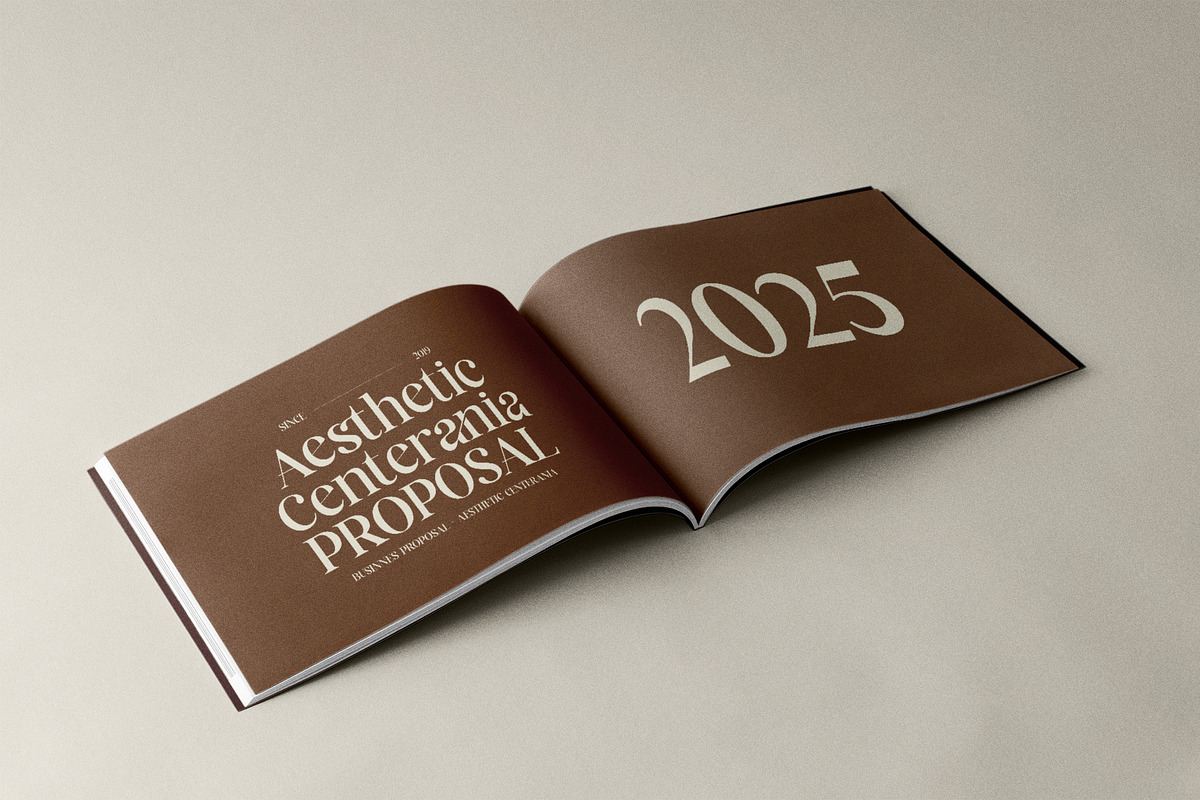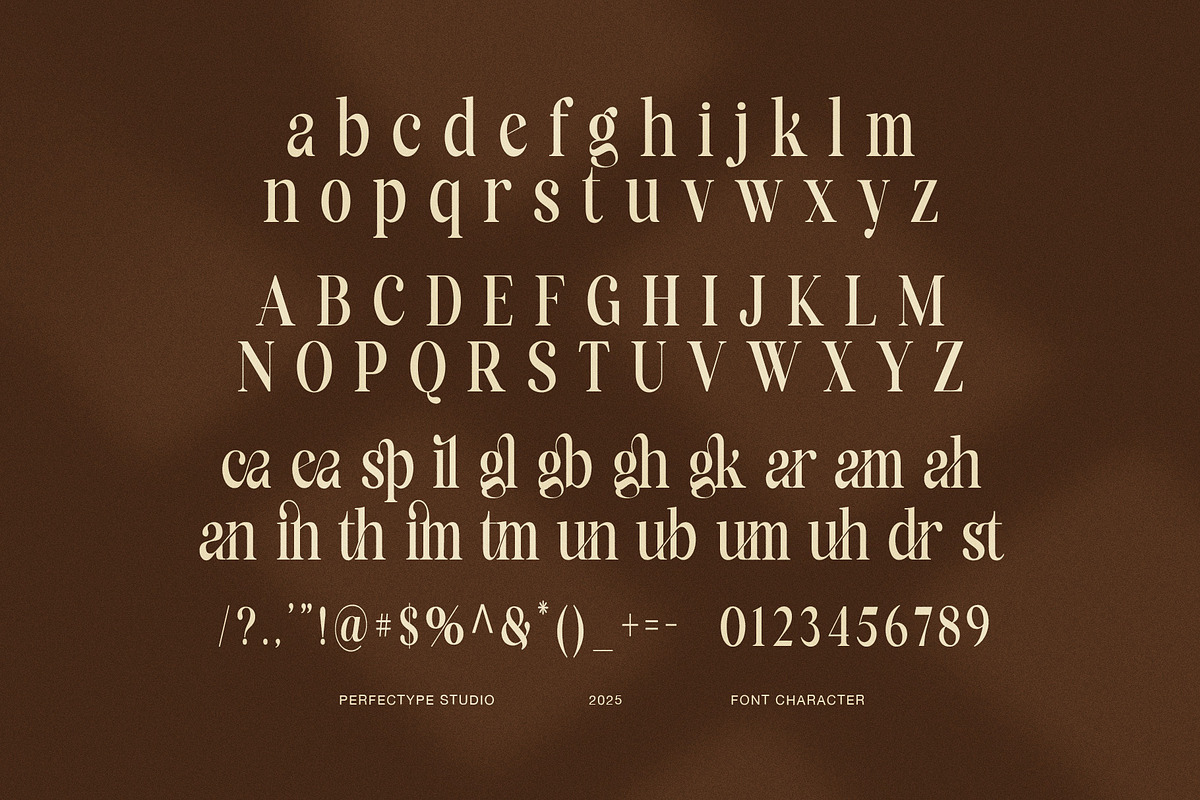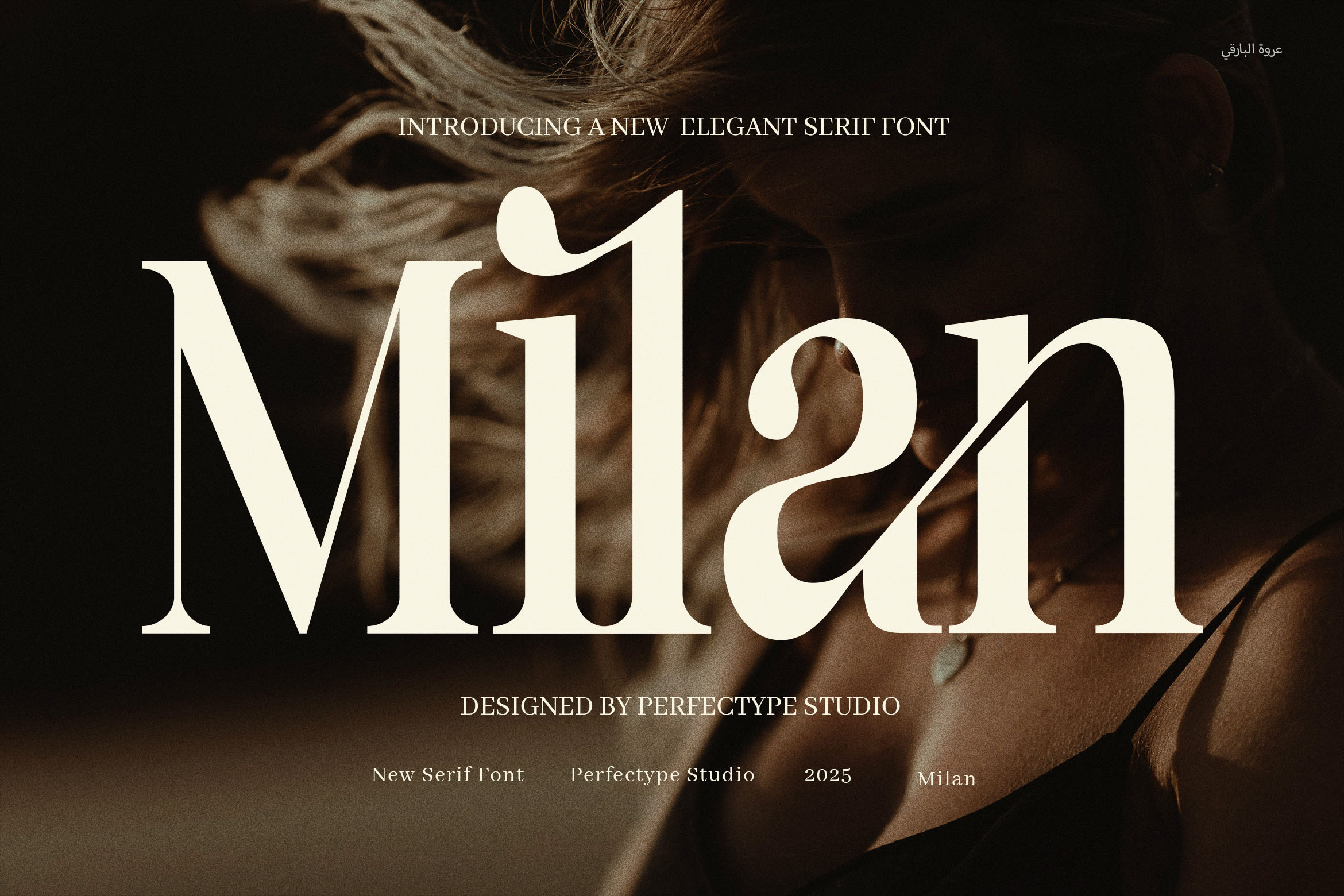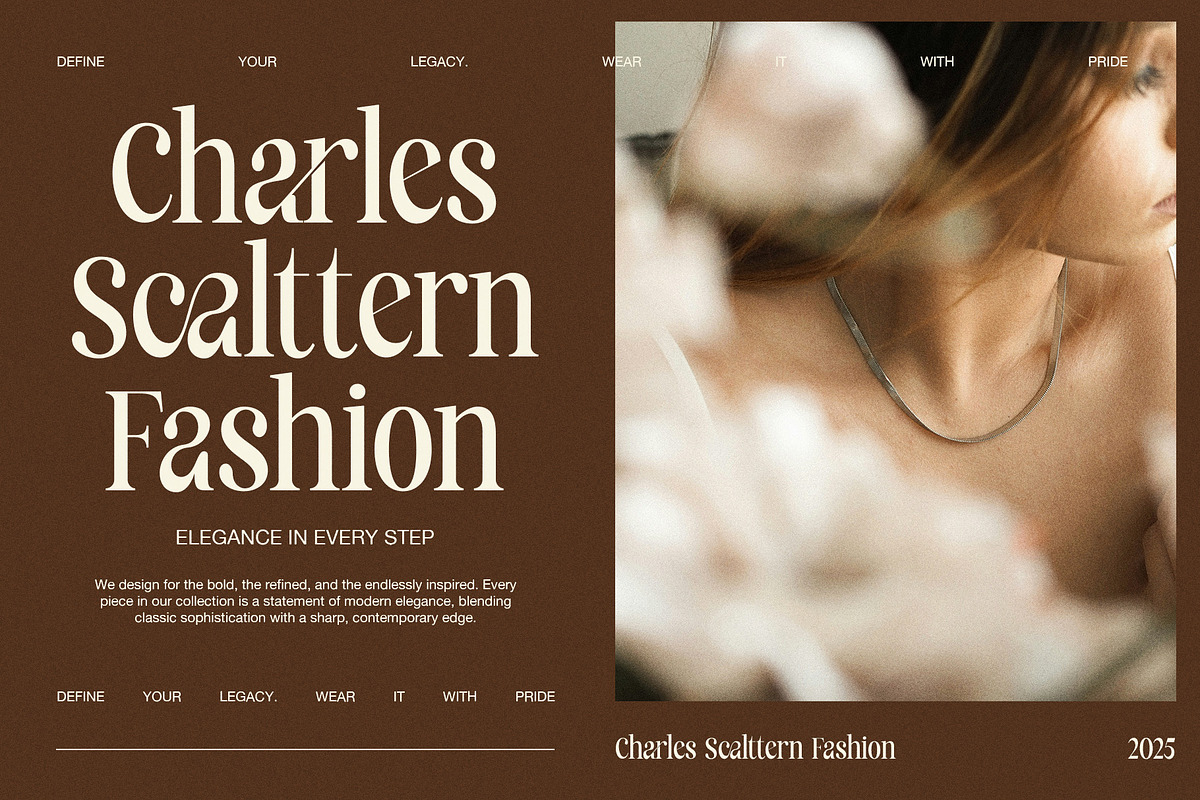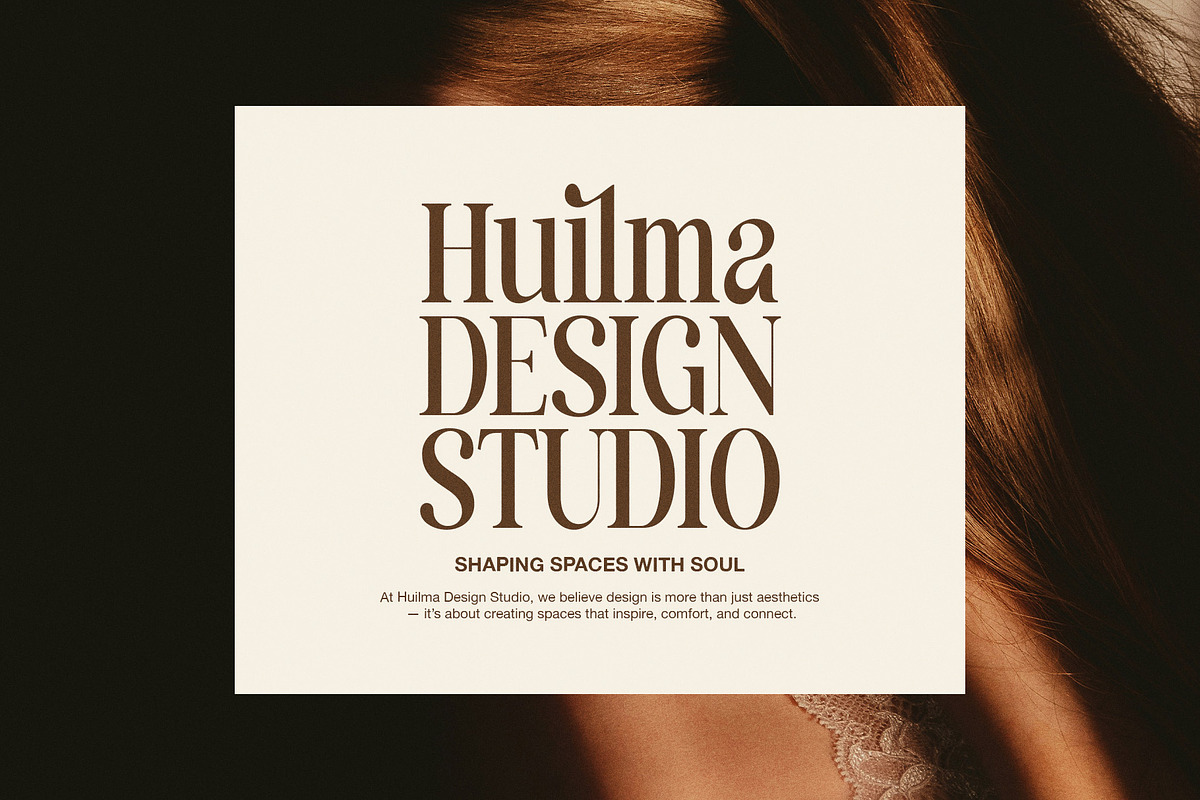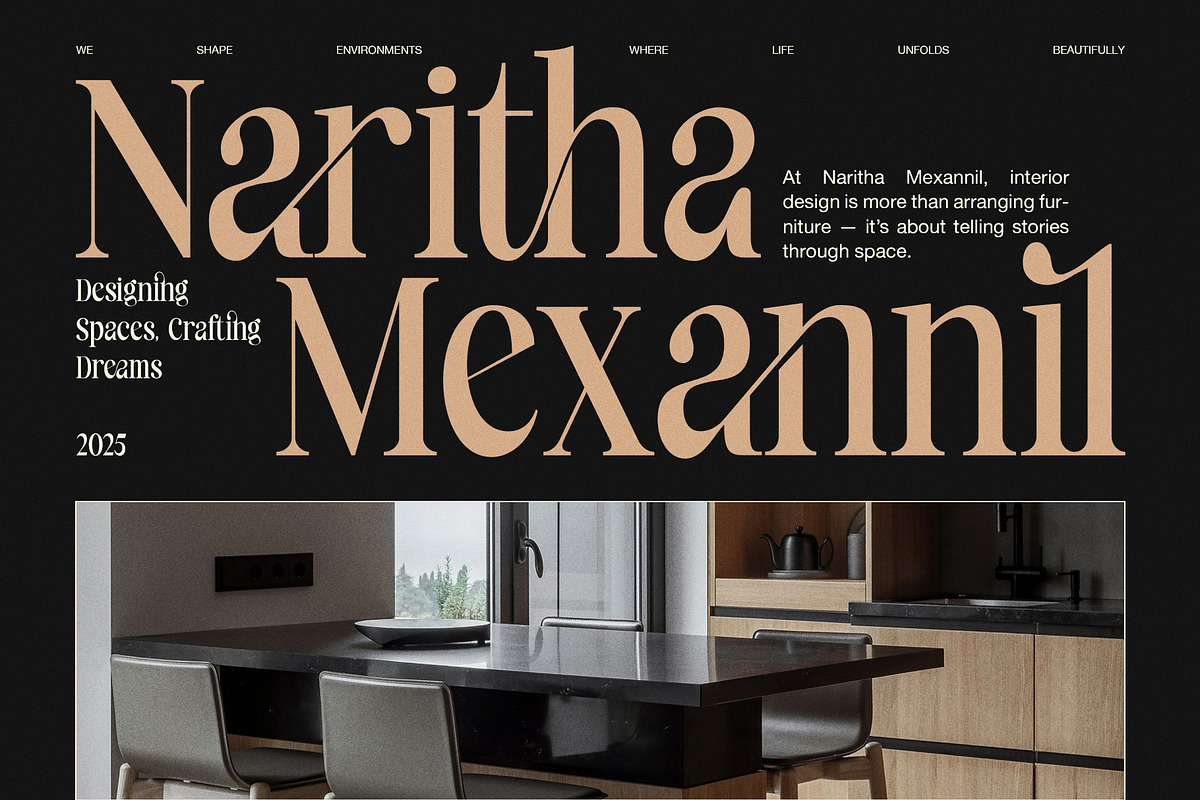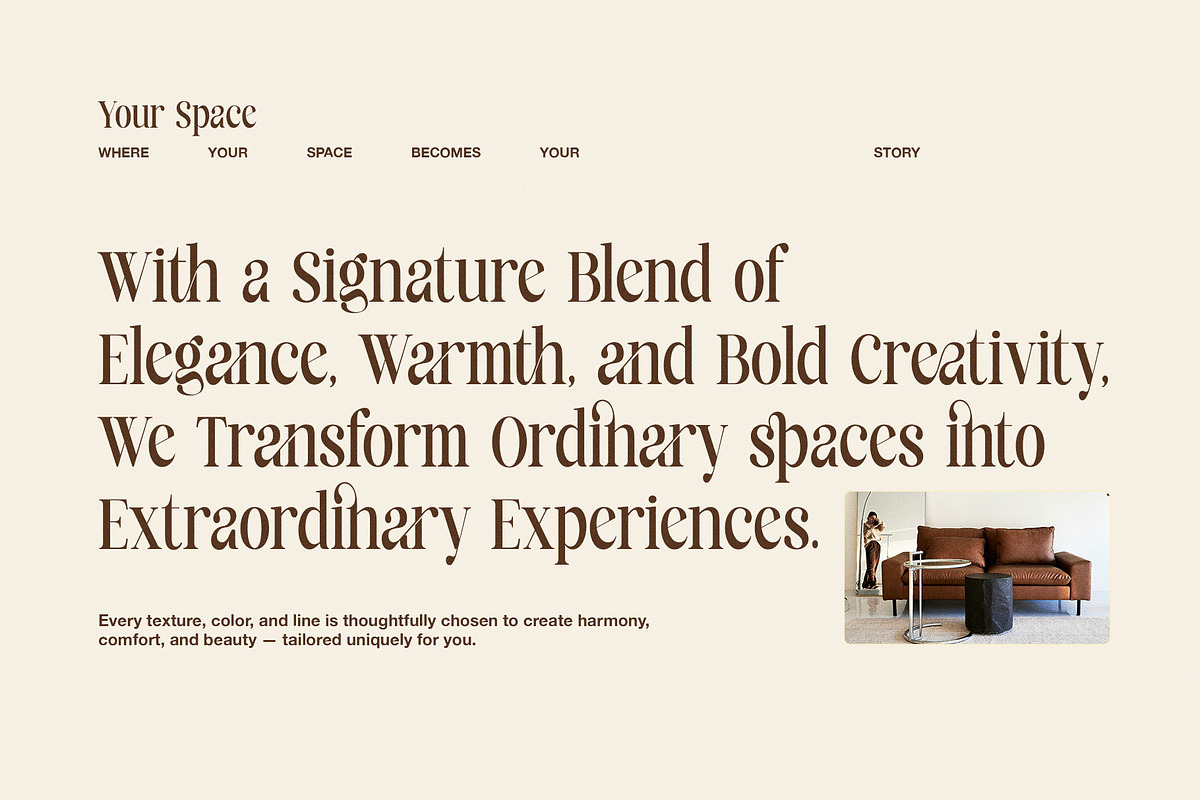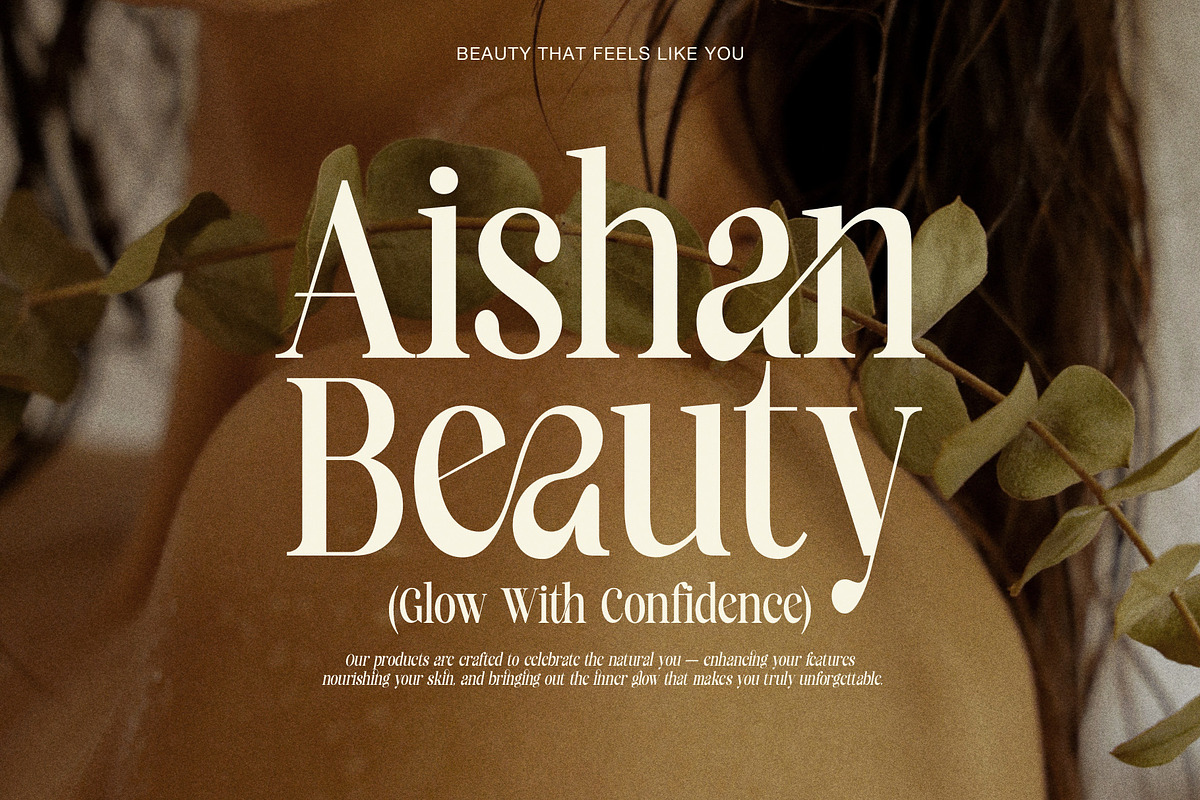
Milan Elegant Serif Font
Elevate your branding with Milan Elegant Serif, a refined serif font that blends timeless elegance with a modern edge. Crafted with clean, proportional shapes and sophisticated details, this typeface is perfect for designers who need a font that is both stylish and highly versatile.
Whether you're designing for a boutique, fashion label, high-end product, or corporate identity, Milan Elegant Serif gives your work a polished, luxurious feel. Its functional ligatures add extra charm, while every letterform is tailored to maintain balance and legibility across print and digital platforms.
With this font, your design will not only look professional but also feel exclusive. It's ideal for:
Logo design
Brand identity systems
Website headers
Magazine layouts
Product packaging
Editorial and advertising
Luxury goods and boutique branding
Why Choose Milan Elegant Serif?
Modern and timeless serif style
Built-in ligatures for a seamless design
High readability with a luxurious feel
Suitable for both print and digital use
Designed for brands that want to stand out
If you're looking to create a visual identity that is both elegant and impactful, Milan Elegant Serif is your perfect font solution. Let your brand speak with confidence, style, and clarity.
Unlock the power of typography and take your design to the next level with Milan Elegant Serif today.